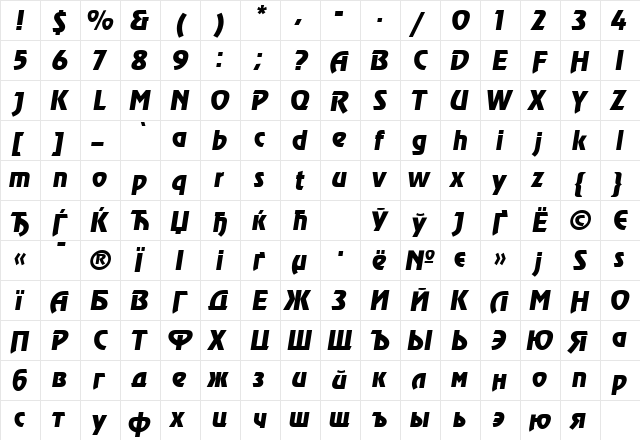
AGZeppelin Oblique
Design Context for AGZeppelin Typeface
AGZeppelin is a composed and adaptable typeface that performs quietly and consistently across a wide range of design contexts. The dynamic lean of this cut emphasises speed and emphasis in any layout.
Pro Tip: Use AGZeppelin for emphasis, pull quotes, and subheadings where its slanted energy can add rhythm to the layout.